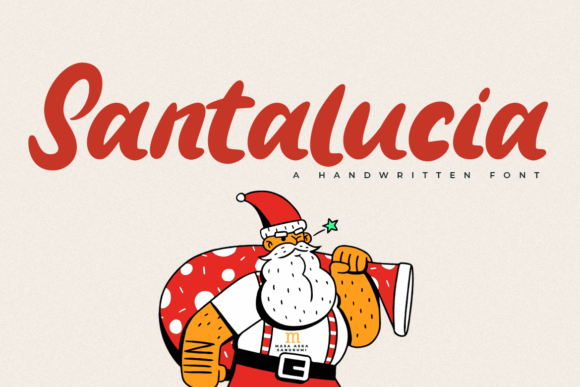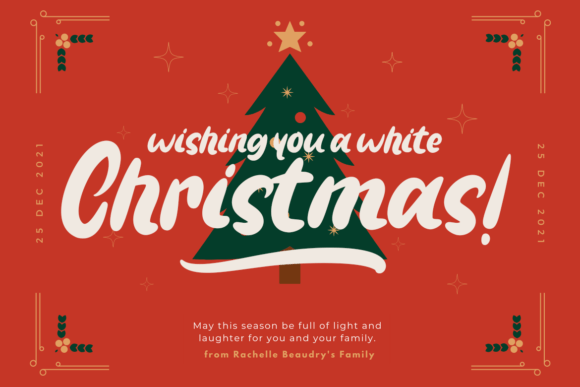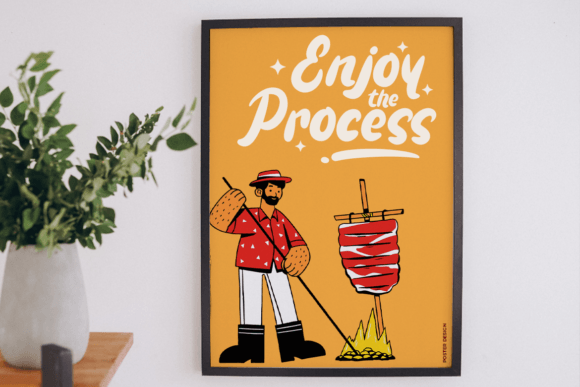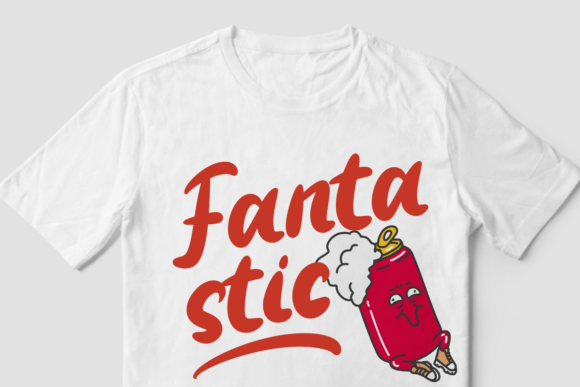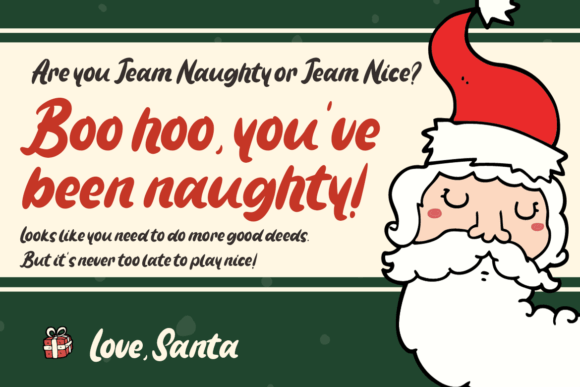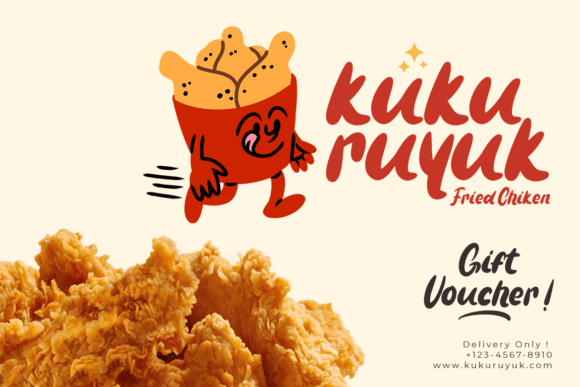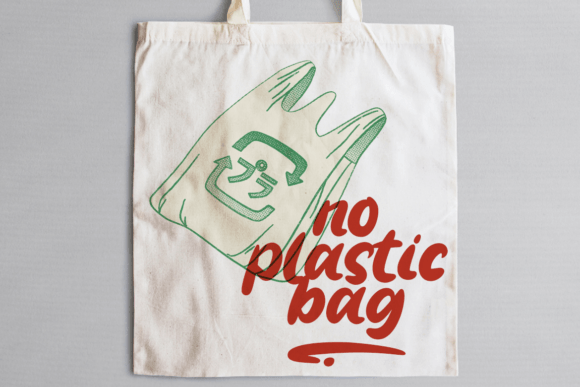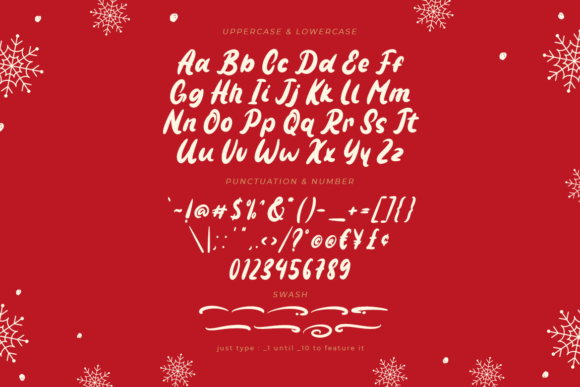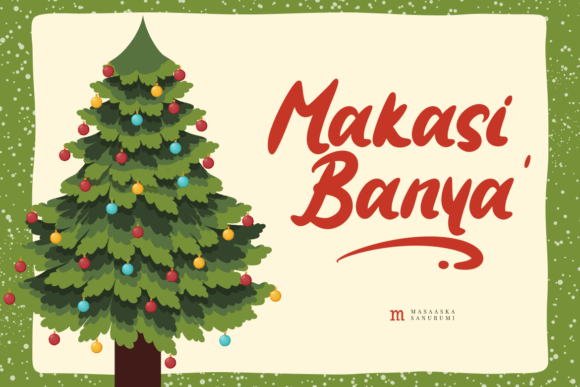
Santalucia Font
Add Modern Elegance with Santalucia Font
Santalucia Font is a beautiful and modern script typeface known for its simplicity and stylish design. This font offers a clean and elegant touch, ideal for a variety of creative projects. Whether you want to create eye-catching Instagram posts, detailed calligraphy work, or charming DIY projects, Santalucia Font will help turn your ideas into true works of art.
Its smooth and flowing letterforms bring a refined and graceful style, enhancing the beauty of any design.
Versatile Uses for Santalucia Font
Santalucia Font suits a wide range of creative projects, such as:
• Instagram graphics and social media posts
• Calligraphy and handwritten DIY projects
• Wedding invitations and event stationery
• Branding and logo designs
• Posters, flyers, and promotional materials
Thanks to its beautiful and modern script style, Santalucia Font adds elegance and sophistication to all your creative ideas.
It features balanced kerning and clear spacing to keep your text readable and visually appealing across different sizes and formats.
Why Designers Choose Santalucia Font
Designers and creatives appreciate SantaluciaFont for its blend of modern style and classic beauty. It adds a personal and professional flair that elevates any project. Whether you are a professional designer or a hobbyist, SantaluciaFont helps you craft beautiful and memorable typography with ease.
Use SantaluciaFont to bring modern elegance and artistic style to your next creative design.